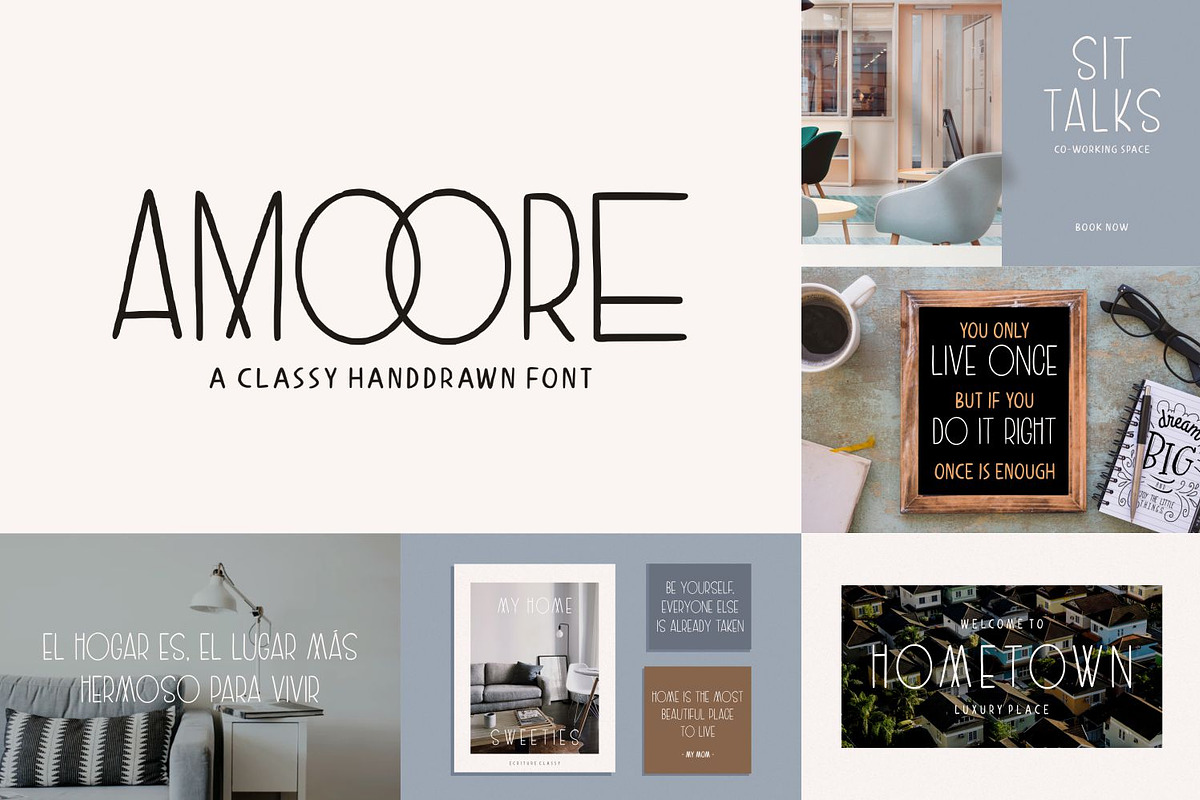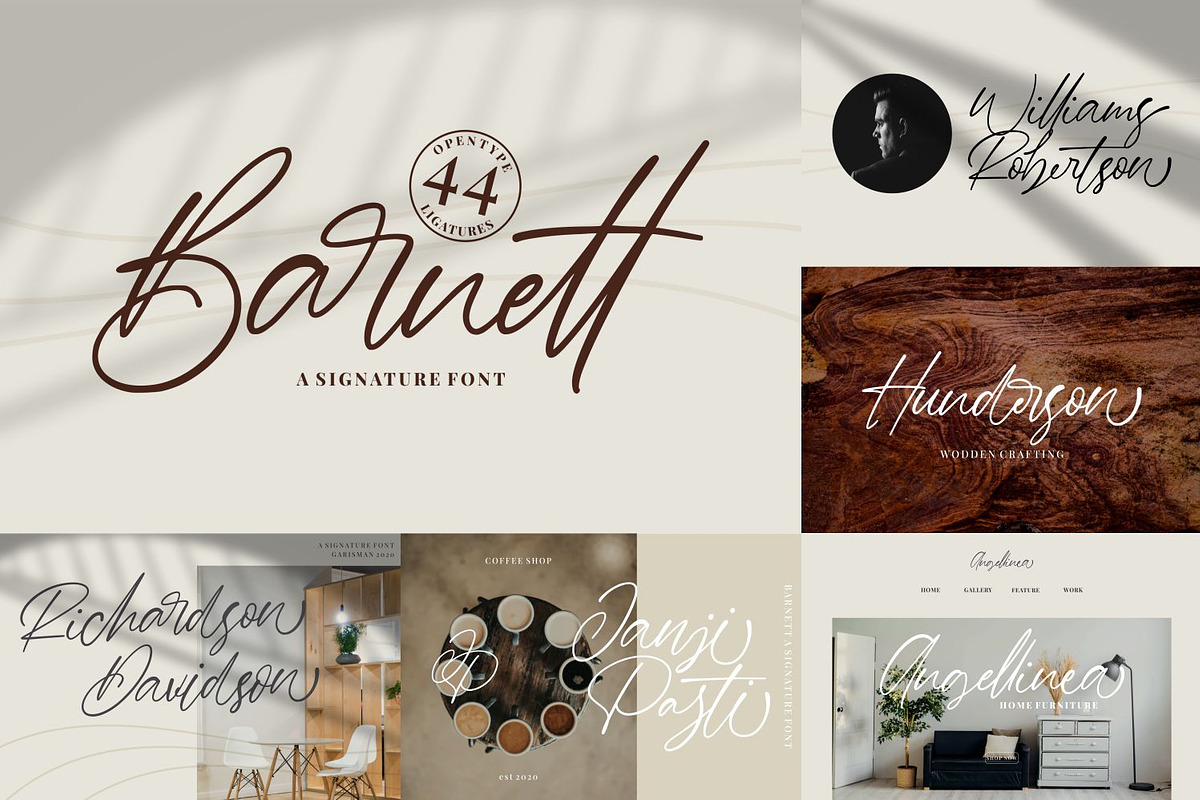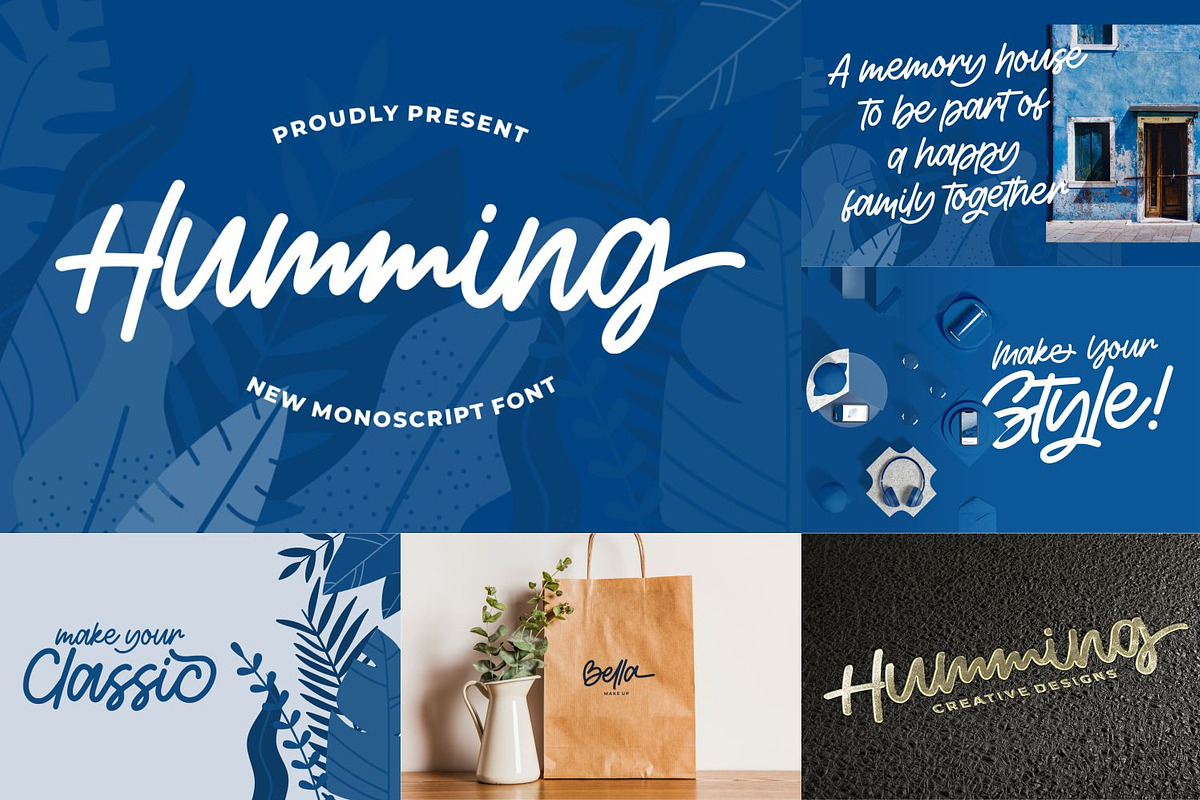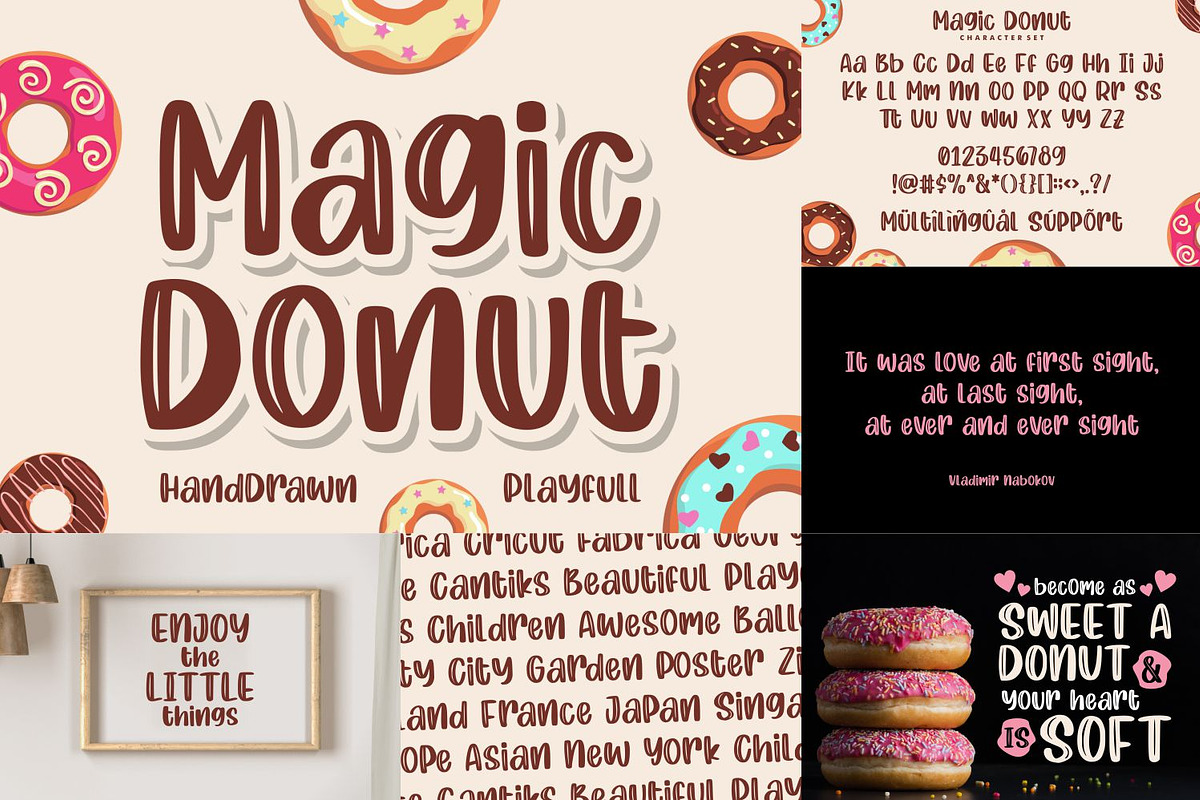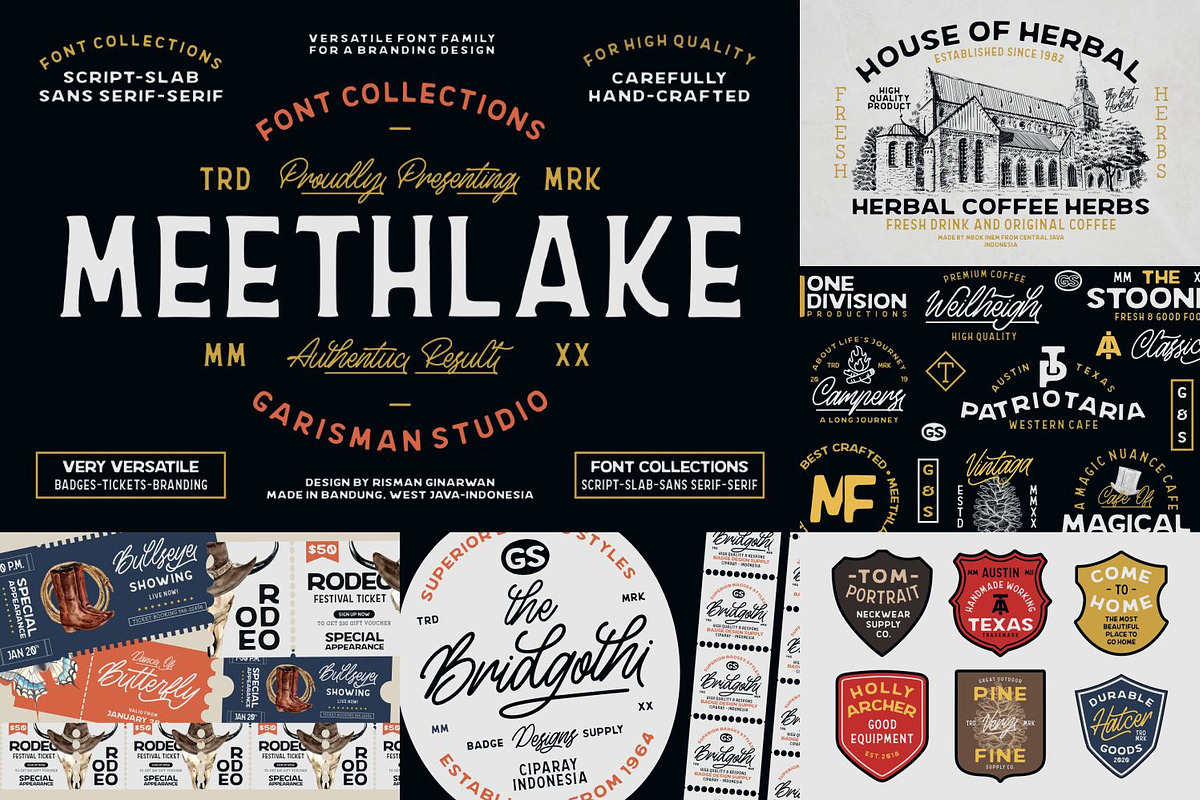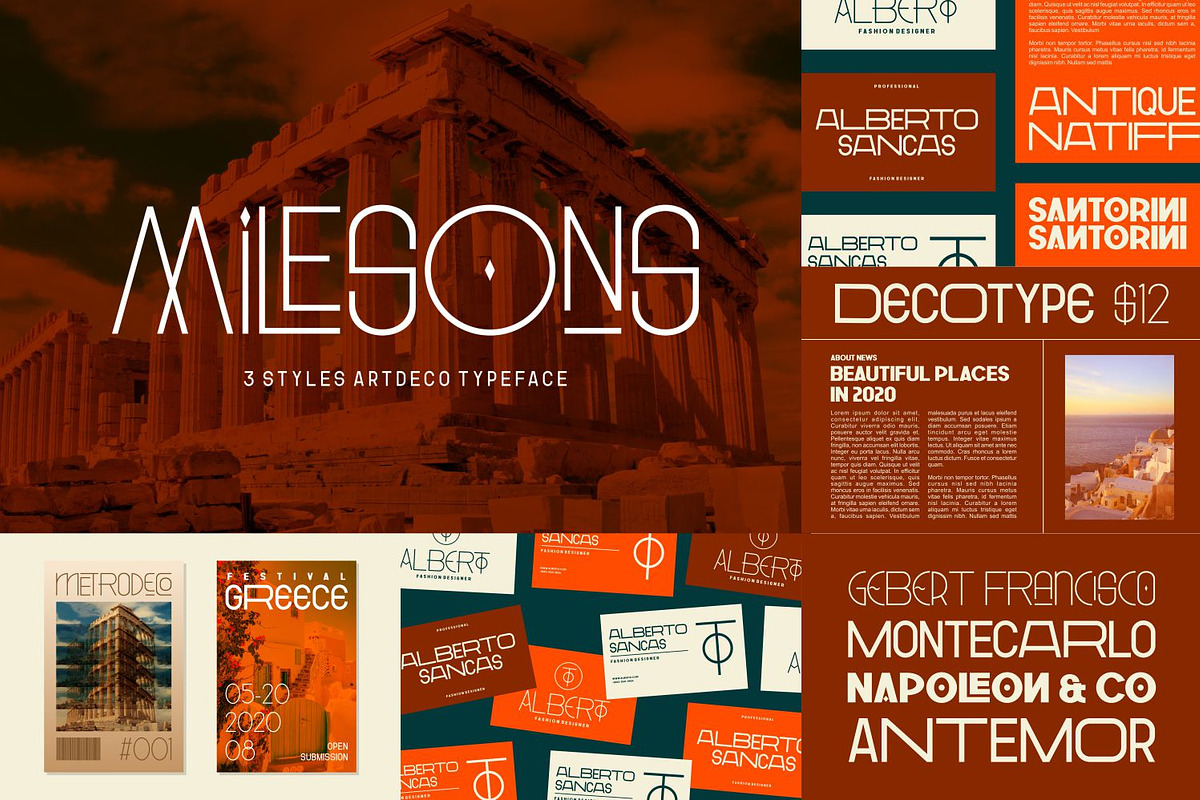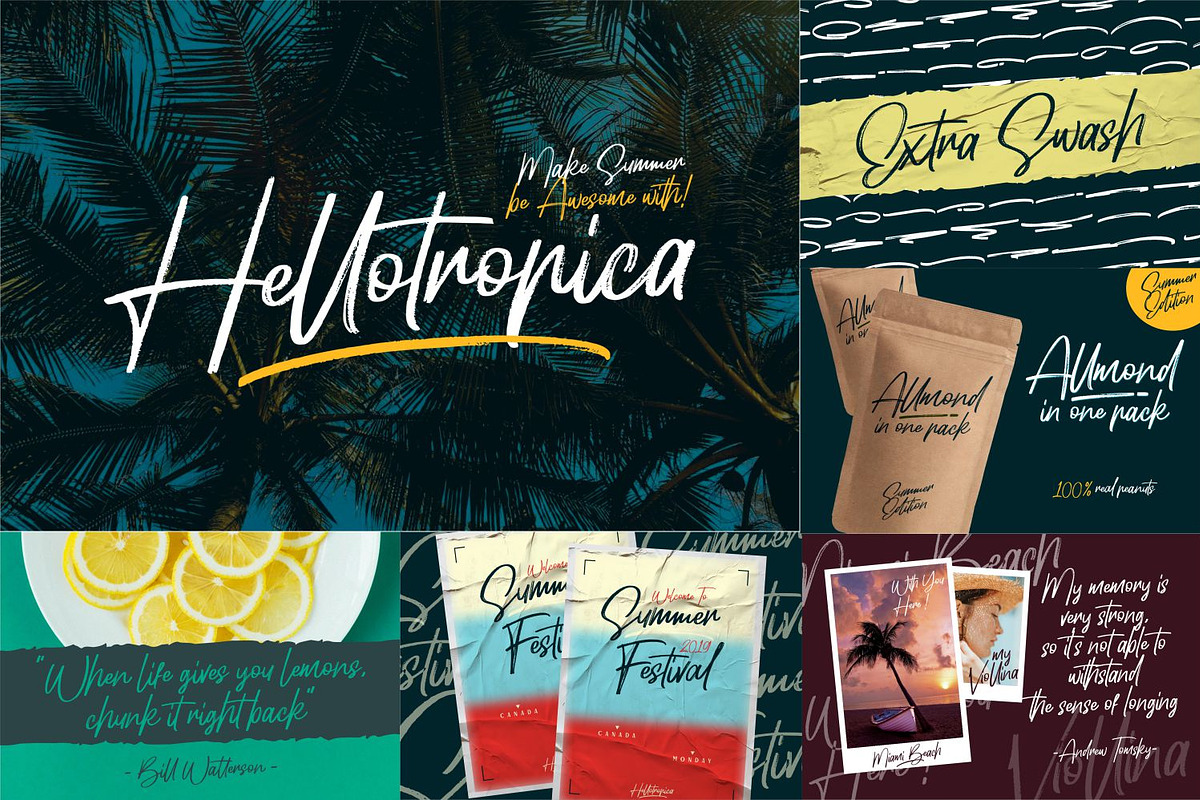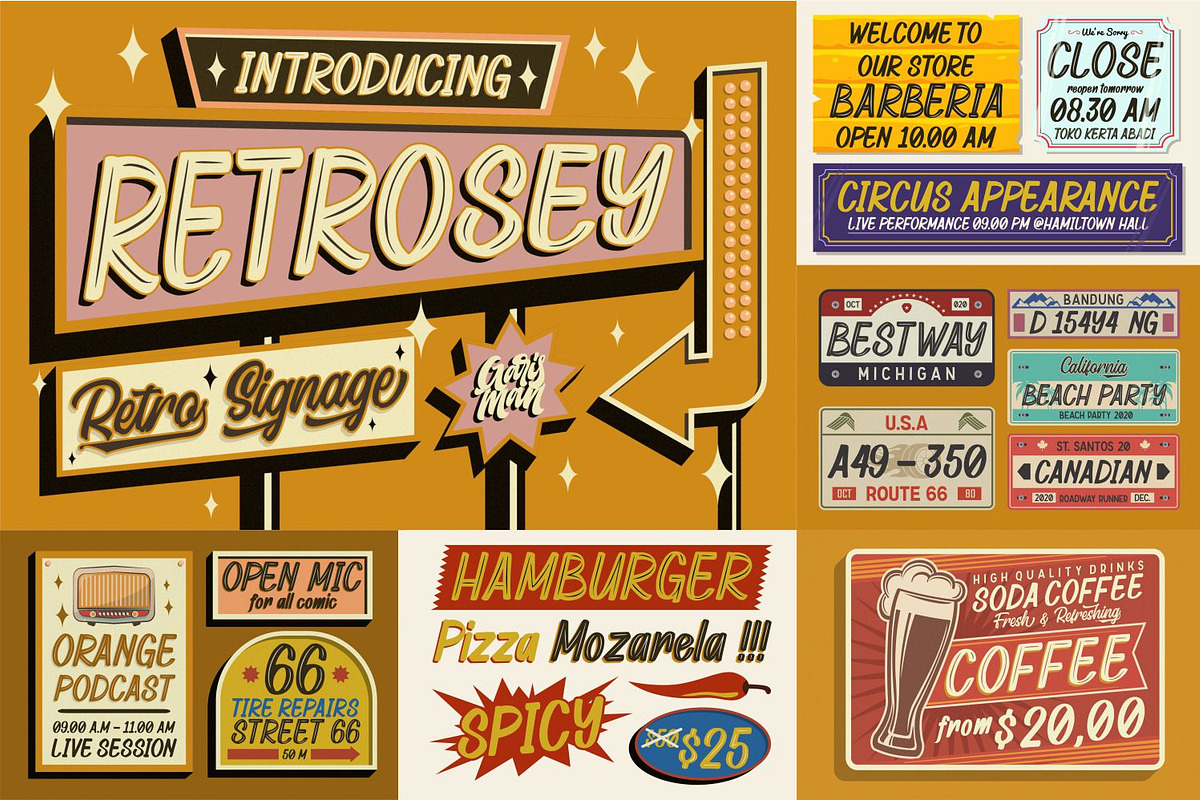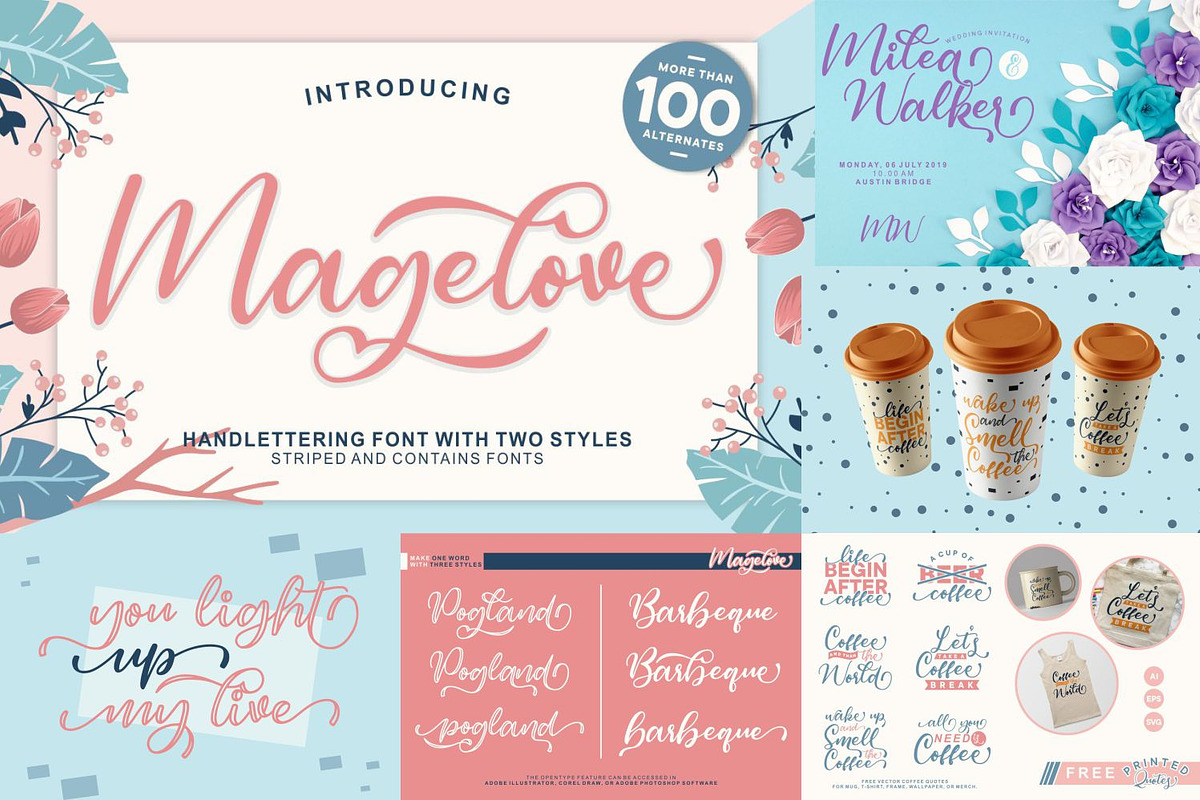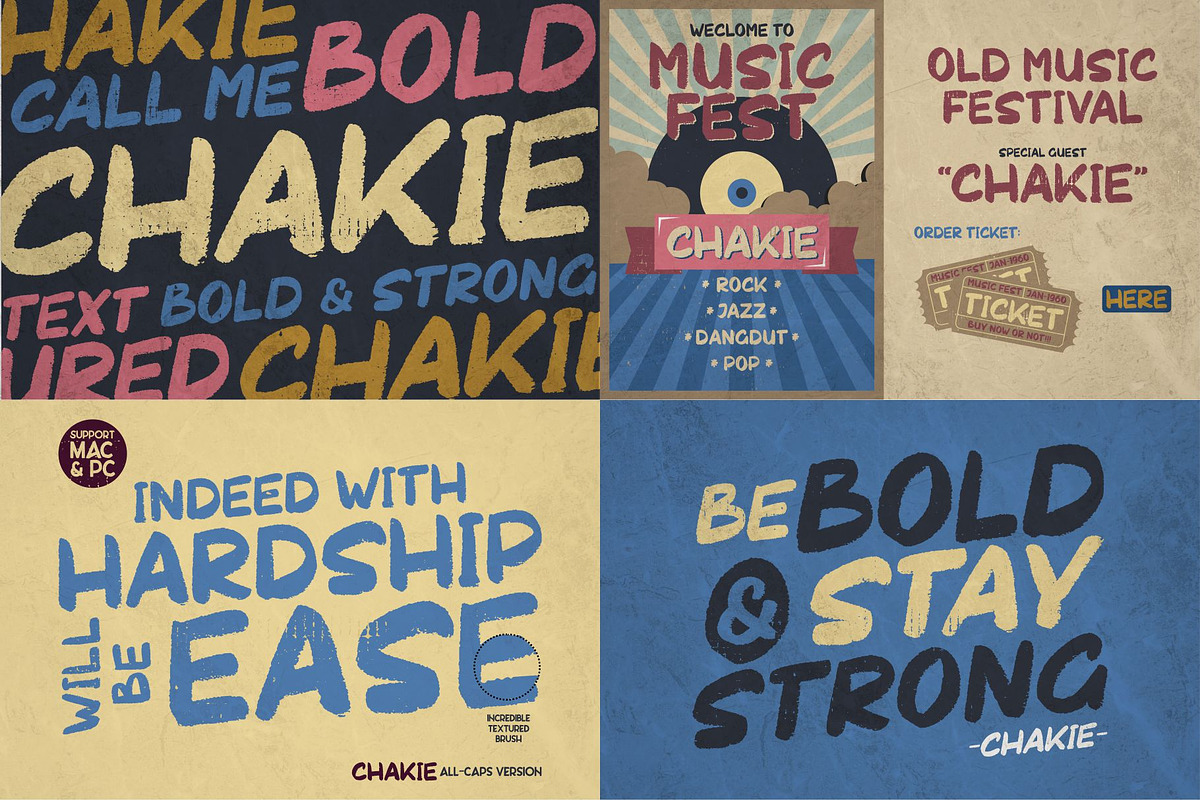
The MEGA FONT COLLECTIONS 2021
WELCOME TO: THE MEGA FONT COLLECTIONS
This bundle has various font styles from brush font, Sans Serif, serif, sans serif clean, watercolor, cartoon, death metal, signature style, logotype font, etc.
All of these fonts can be used for various project needs such as logo design, posters, headlines, wedding cards, invitations, packaging, clothing, etc. with many features such as binder, swash, alternative, multilingual and PUA encoded!